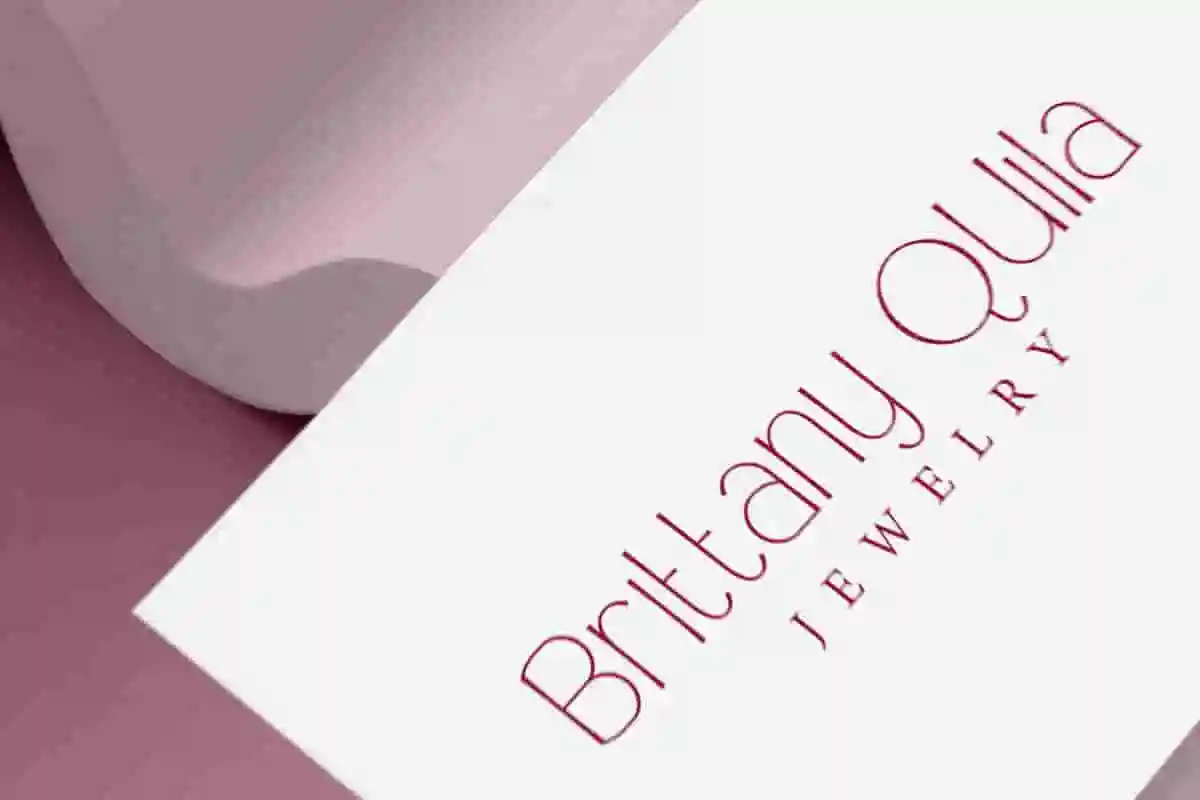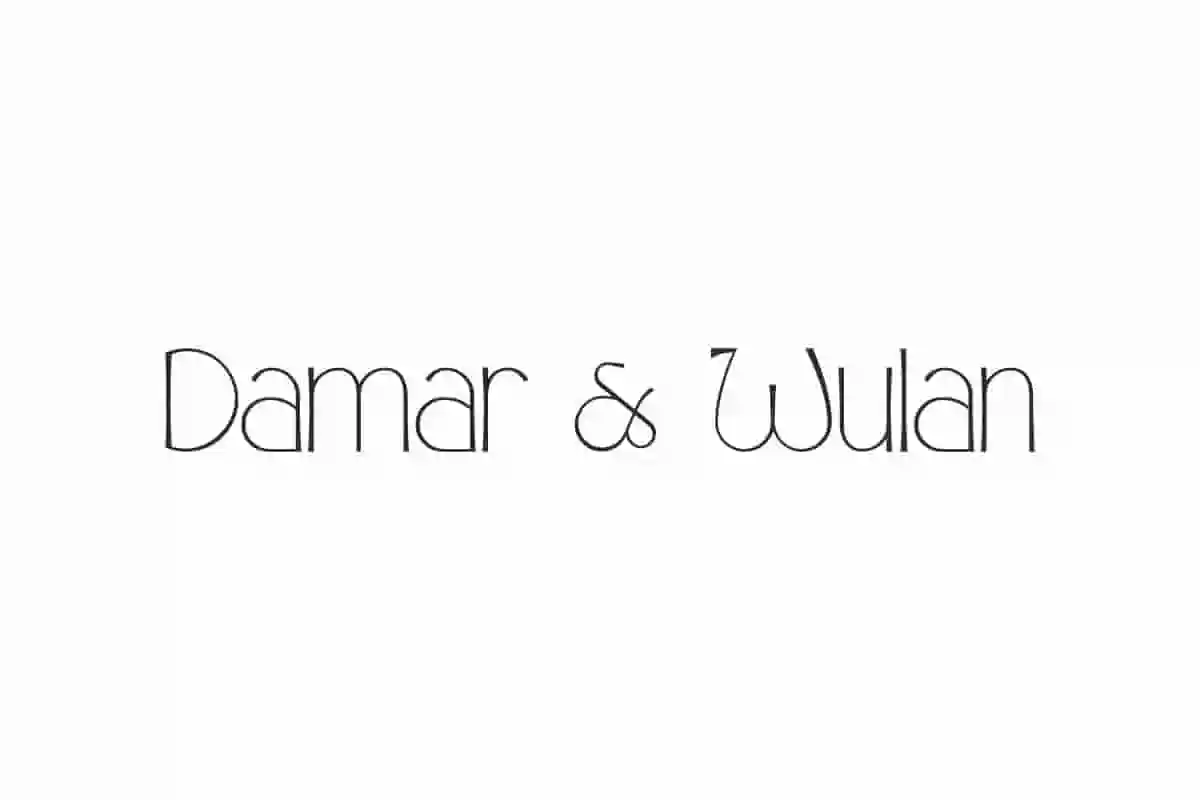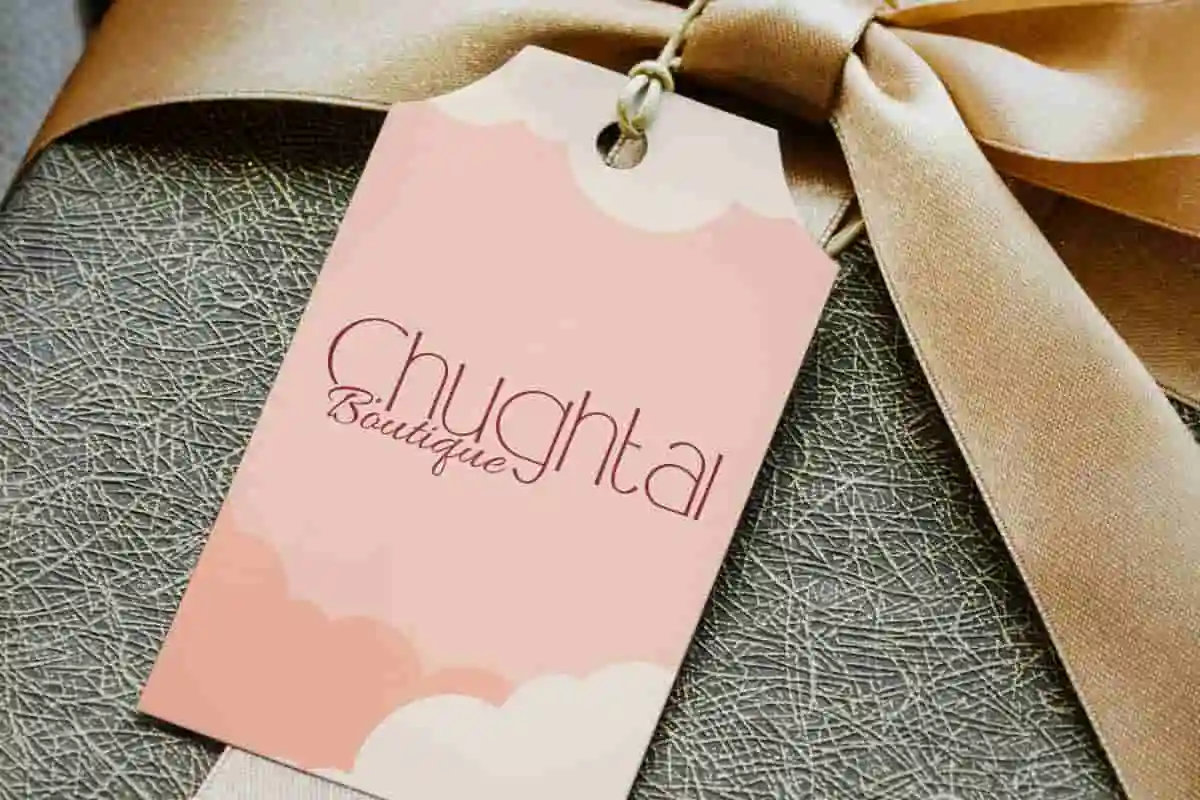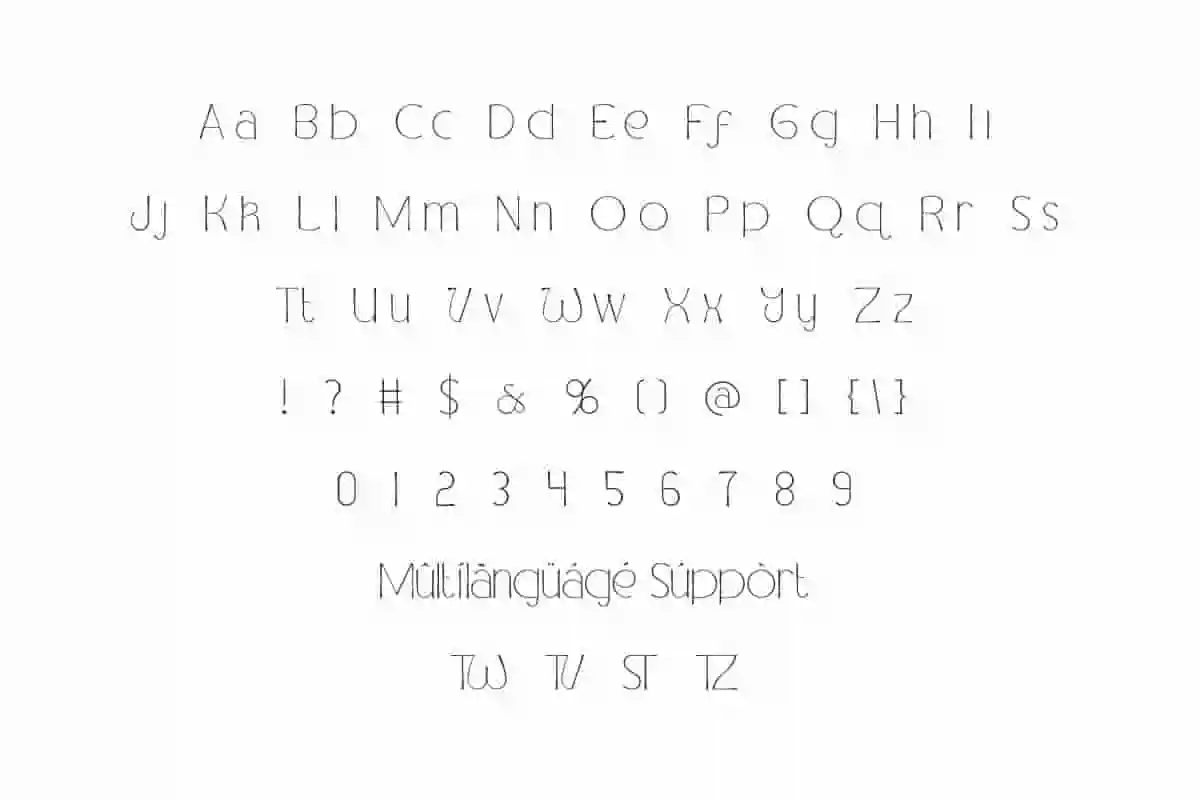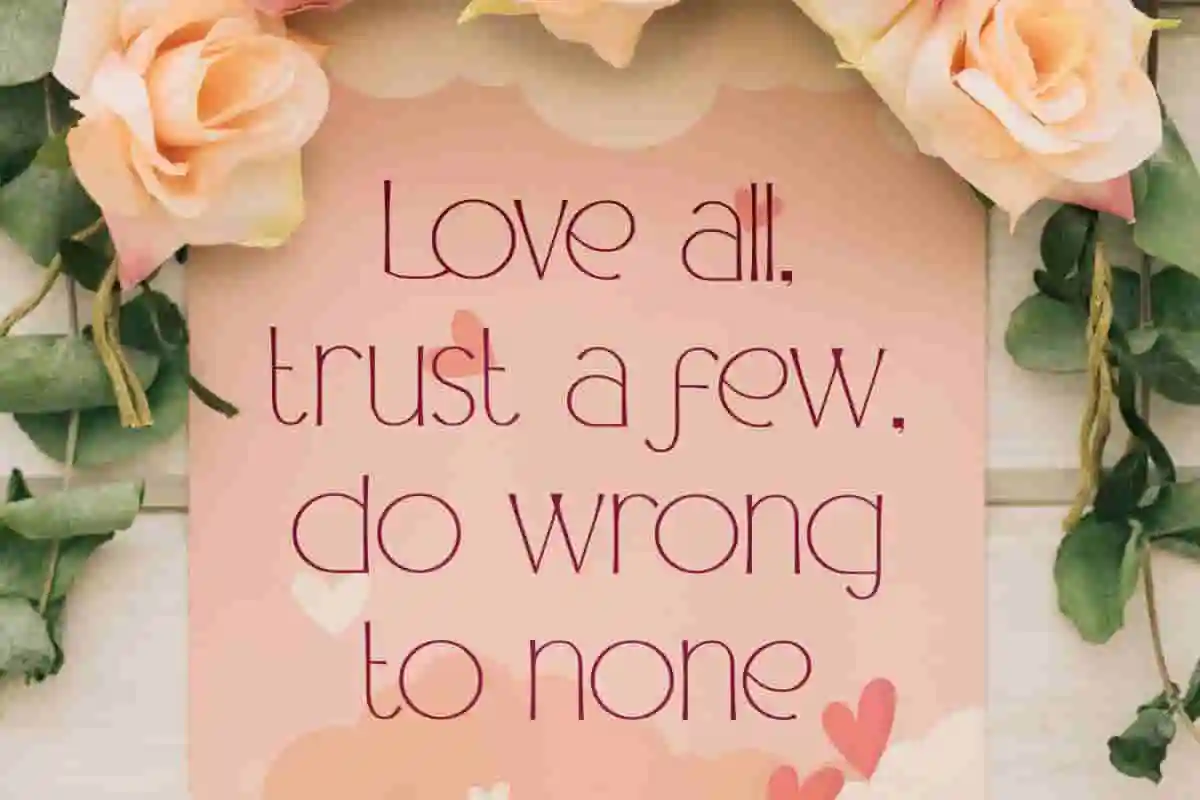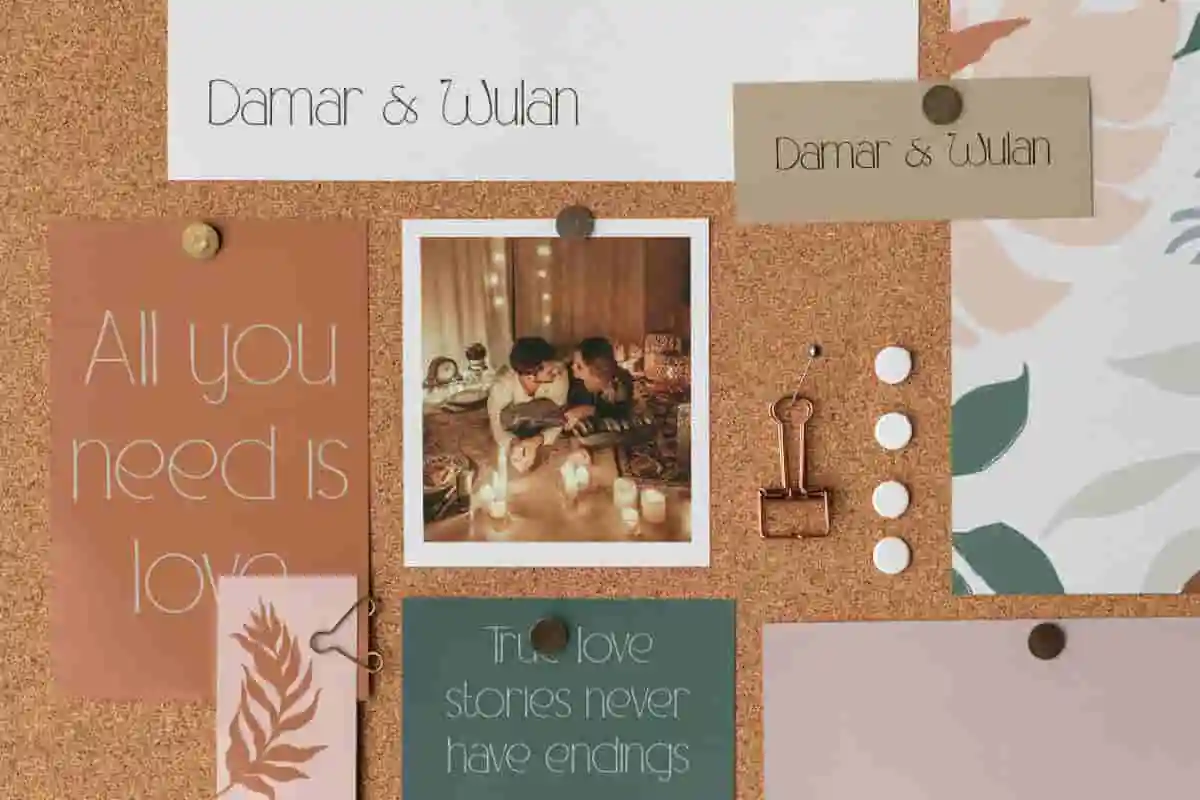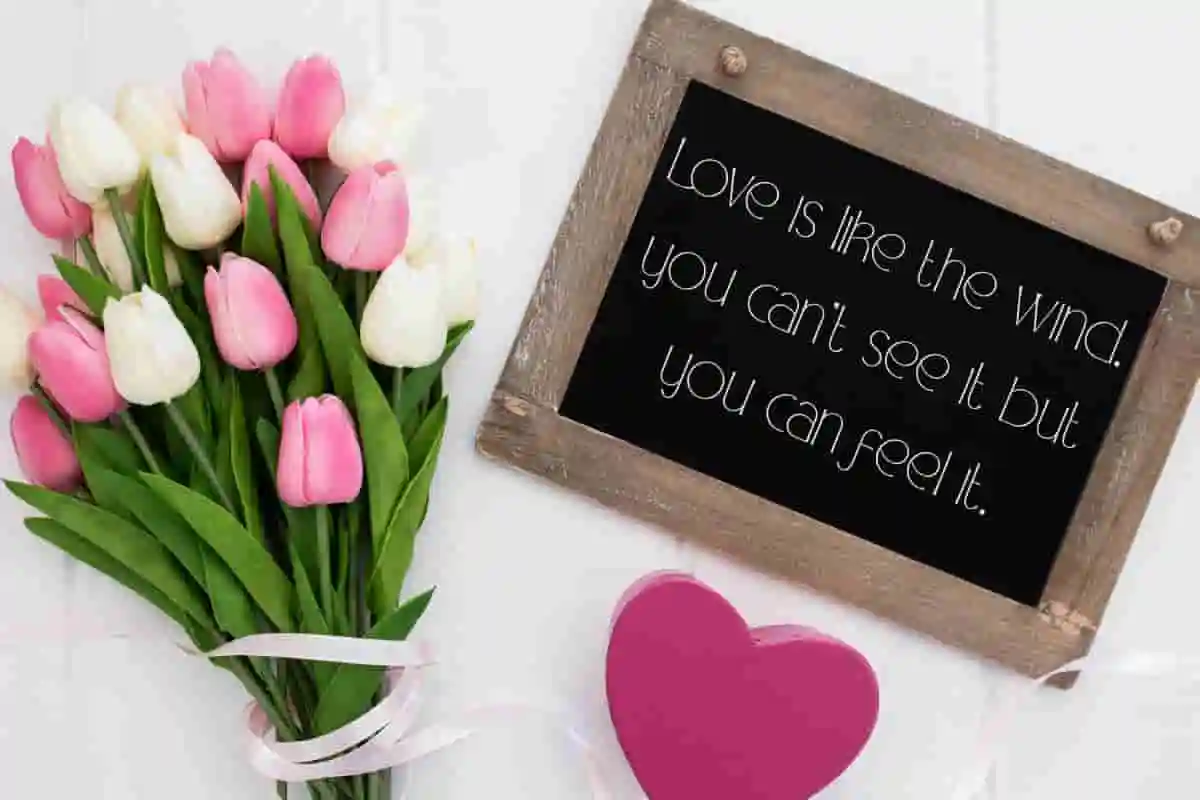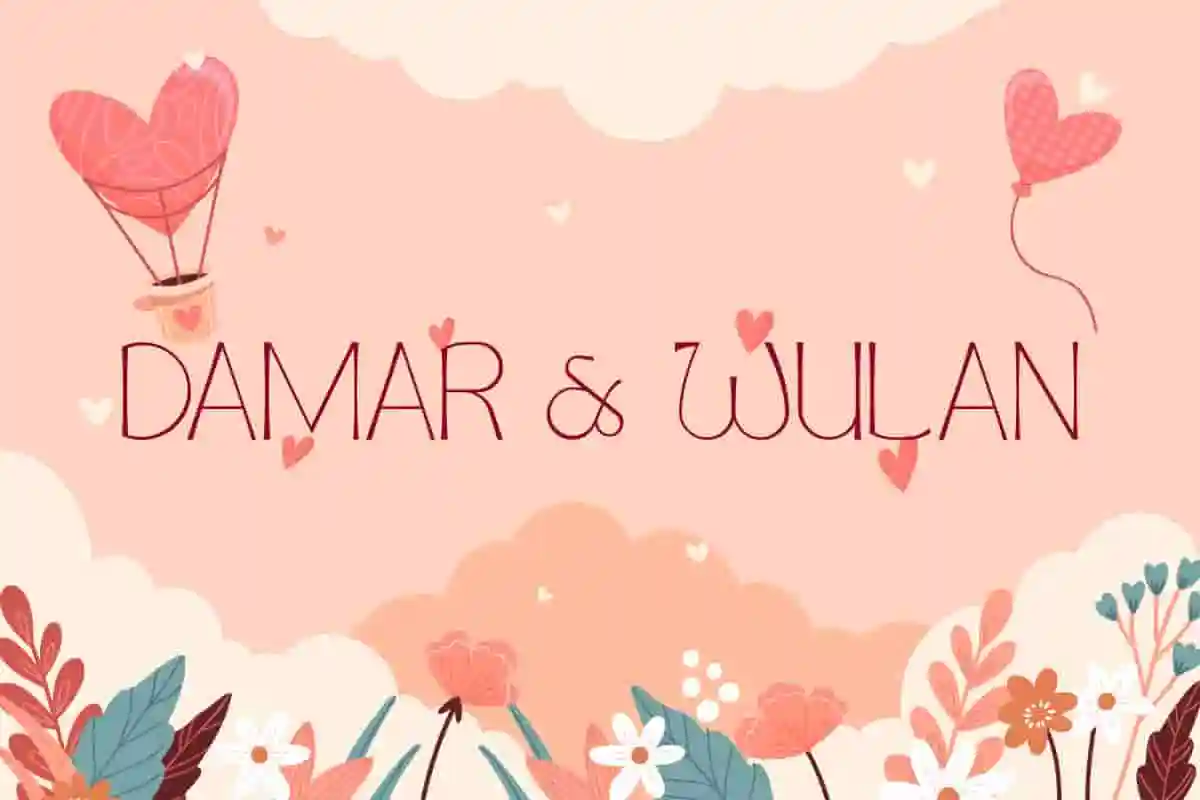
Damar dan Wulan Font
Damar dan Wulan Font is a modern minimalist sans serif display font capable of making anyone who sees it want to have it! It plays an important role in brand identity, etc.
Damar dan Wulan Font is a modern minimalist sans serif display font with a soft touch. It will improve your business, such as architect, botany, boutique, café, cosmetic, craftsman, event organizer, fashion designer, florist, furniture, interior design, jewelry, photography, printing, publishing, real estate, restaurant, skincare, spa salon, wedding, writer, etc.
Damar dan Wulan Font includes full set of Uppercase and Lowercase Basic Characters, Number, Punctuation, and Symbol. It’s light and has a sophisticated feel to help enhance your designs, such as apps, billboard, blogs, body text, brand logo, brochure, cover, flyer, header, invitation, label, packaging design, poster, quote, screen print, stationery, sticker, title, watermark, website, and many more.